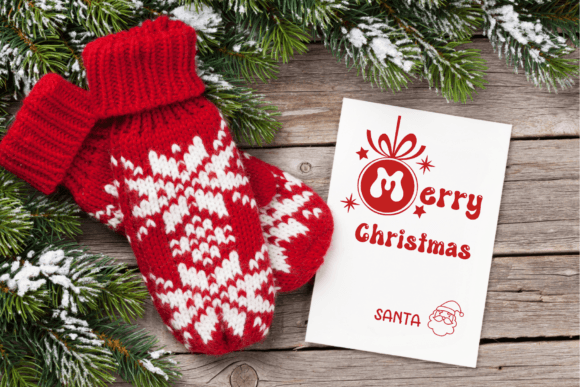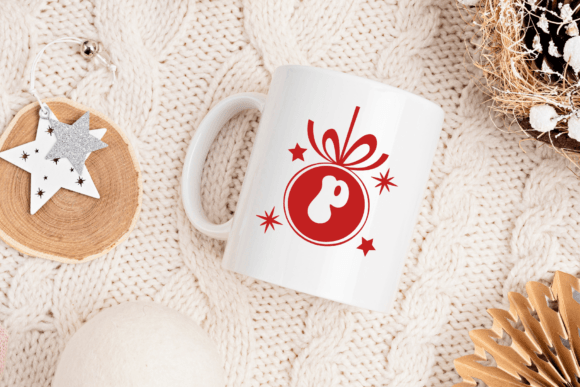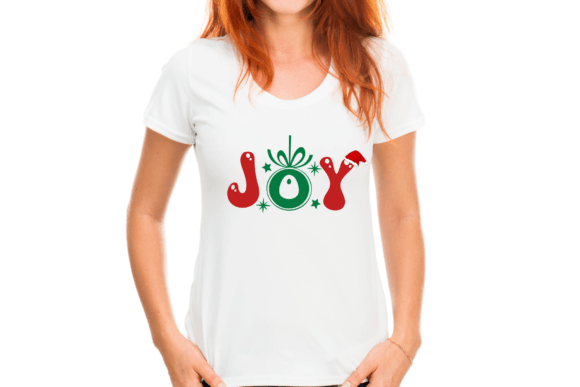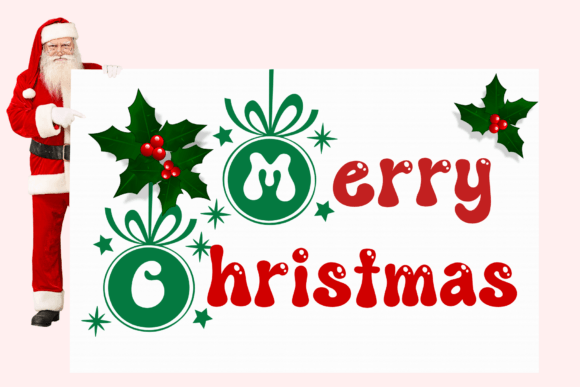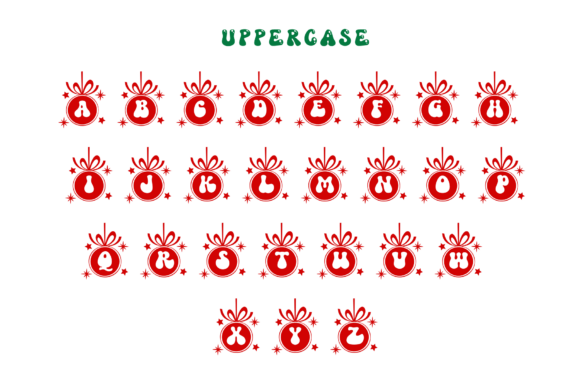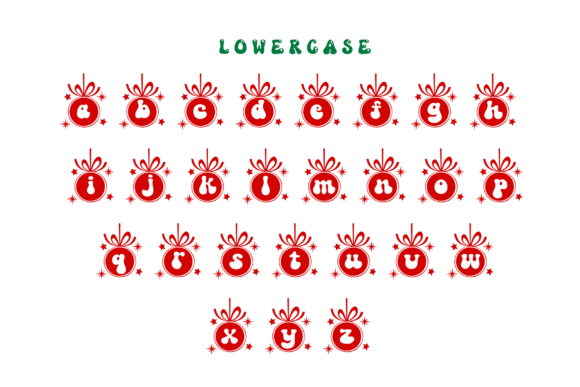
Deck the Halls with Christmas Balls Retro Font
The holiday season is upon us, and with it comes the joy of decorating and designing for the festive period. For designers and crafters looking to add a touch of nostalgia and elegance to their projects, the Christmas Balls Retro Font is a perfect choice. This decorative typeface is a beautiful blend of classic holiday charm and retro flair, making it an ideal addition to any seasonal design.
What is Christmas Balls Retro Font?
The Christmas balls retro Decorative font is a festive and elegant typeface that brings the charm of holiday baubles to your designs. Each letter is intricately designed with Christmas ball ornaments, making it perfect for seasonal projects, from greeting cards to holiday decor. The font’s unique design combines the nostalgia of traditional Christmas decorations with a modern, retro twist, giving it a distinctive and eye-catching appeal.
Features of Christmas Balls Retro Font
- Intricate Design: Each letter is carefully crafted with Christmas ball ornaments, creating a beautiful and intricate design that’s sure to impress.
- Retro Flair: The font’s retro style adds a touch of nostalgia and vintage charm to your designs, making them stand out from the crowd.
- Festive and Elegant: The Christmas Balls Retro Font is both festive and elegant, making it perfect for a wide range of seasonal projects, from formal invitations to casual greeting cards.
- Versatile: The font is versatile and can be used for various design projects, including holiday decor, packaging, and more.
Uses for Christmas Balls Retro Font
The Christmas Balls Retro Font is perfect for a variety of design projects, including:
- Greeting Cards: Add a touch of elegance and festivity to your holiday greeting cards with this beautiful font.
- Holiday Decor: Use the font to create stunning holiday decor, such as garlands, banners, and more.
- Packaging: Add a festive touch to your holiday packaging with this unique and eye-catching font.
- Social Media Graphics: Create stunning social media graphics, such as holiday-themed posts and stories, with this beautiful font.
Tips for Using Christmas Balls Retro Font
Here are some tips for using the Christmas Balls Retro Font in your designs:
- Pair with Solids: Pair the font with solid colors or subtle patterns to make it stand out.
- Use Sparingly: Use the font sparingly to avoid overwhelming your design. One or two lines of text is enough to make a statement.
- Experiment with Colors: Experiment with different colors to find the perfect combination that matches your brand or design.
The Christmas Balls Retro Font is a beautiful and unique typeface that’s perfect for designers and crafters looking to add a touch of holiday charm to their projects. With its intricate design, retro flair, and festive elegance, this font is sure to impress. Whether you’re creating greeting cards, holiday decor, or packaging, this font is a versatile and eye-catching choice. So why not deck the halls with the Christmas Balls Retro Font and make your designs shine this holiday season?